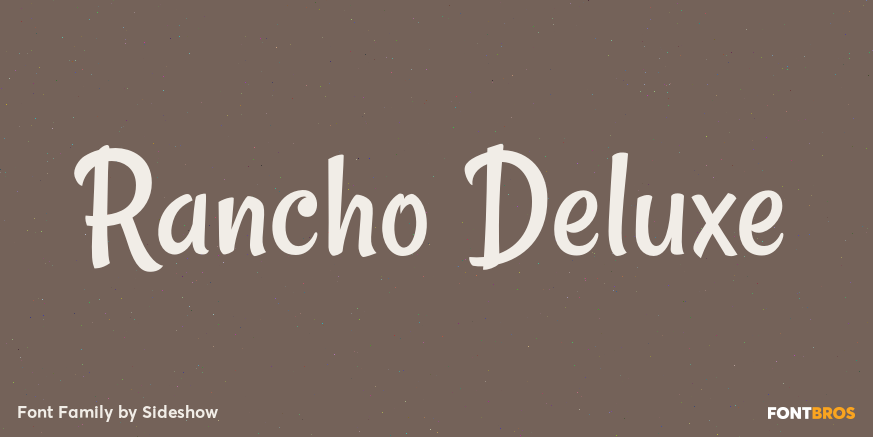
Rancho Deluxe
About Rancho Deluxe
Howdy pardner! Need a little southwest flair in your type trunk? Well Squid and Sideshow have a brush (sagebrush, that is) script they\’ve branded Rancho Deluxe that\’ll do the trick. Its as comfortable as your favorite dungarees and works just as well…